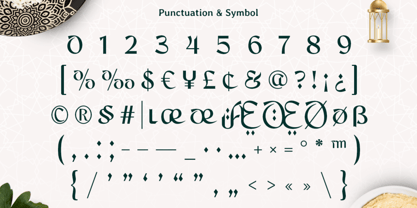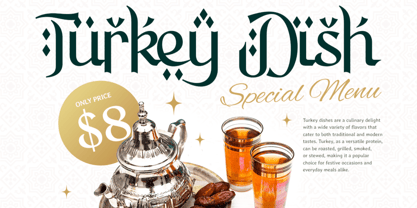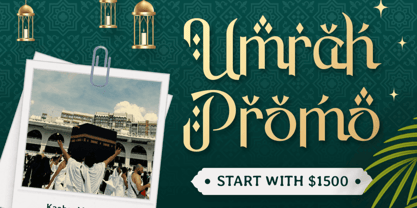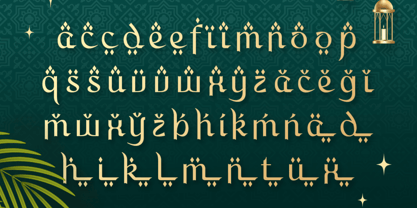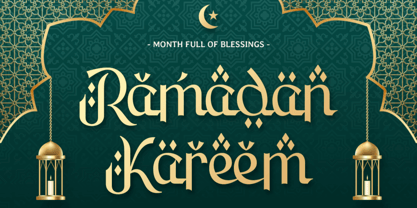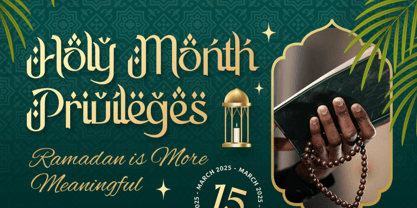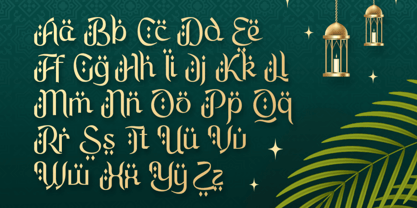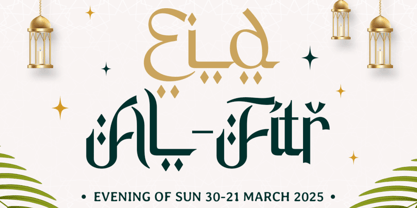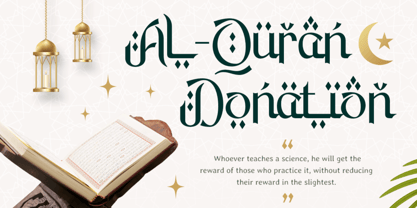
Kasem
Kasem – Modern Luxury Arabic Font Kasem is a modern luxury Arabic font designed to capture the beauty of cultural tradition while embodying the sophistication of contemporary style. Inspired by the graceful flow of Arabic calligraphy and refined modern typography, Kasem features elegant curves, balanced proportions, and intricate details that create a truly luxurious visual experience. Each letterform is crafted with precision to convey a sense of prestige, artistry, and timeless elegance. This font is perfect for upscale branding, luxury logos, wedding invitations, editorial layouts, premium packaging, hospitality branding, and cultural design projects. Kasem seamlessly blends traditional Arabic influence with modern aesthetics, allowing it to adapt beautifully across both classic and contemporary creative concepts. Its elegant structure makes it ideal for projects that aim to communicate exclusivity, beauty, and sophistication. Kasem was created for designers who value both artistic expression and cultural authenticity. The font’s alternate characters provide creative flexibility, enabling you to craft unique and visually refined typography compositions. Whether used in bold headlines or subtle design accents, Kasem adds a polished and memorable touch that elevates every project. With its harmonious combination of elegance and modern luxury, Kasem transforms typography into an artistic statement. It is the perfect choice for creators who want to celebrate Arabic-inspired design while maintaining a premium and contemporary appearance. Kasem Modern Luxury Arabic Font Features: • Alternate characters ready • Punctuation, numbers, and symbols • Uppercase and lowercase • OpenType features • Multilingual support for 50 plus languages • Elegant Arabic-inspired luxury style • Ideal for branding, invitations, packaging, and editorials